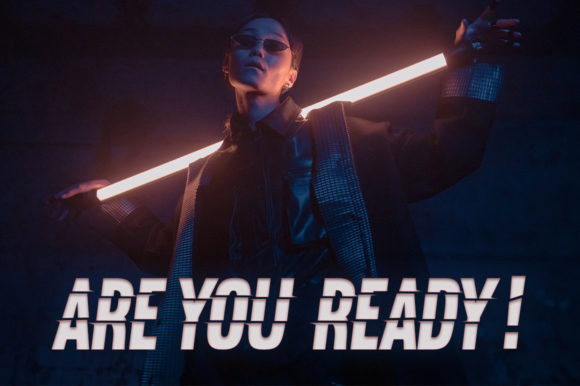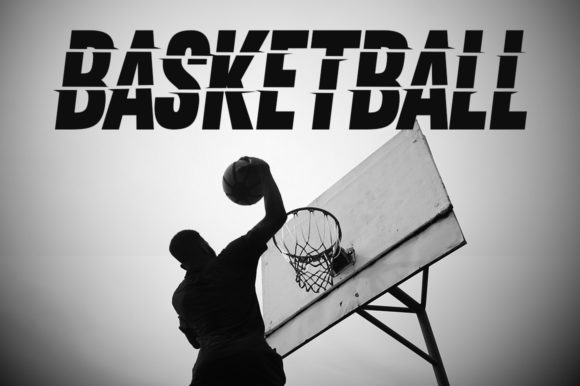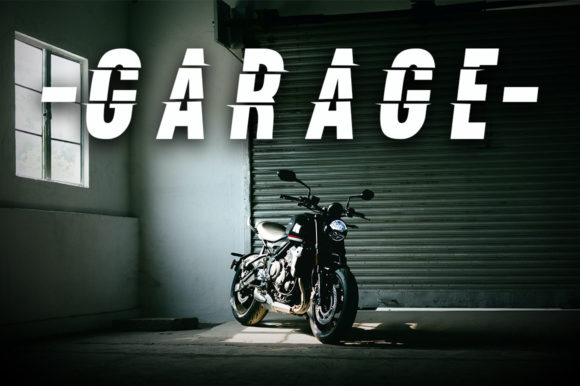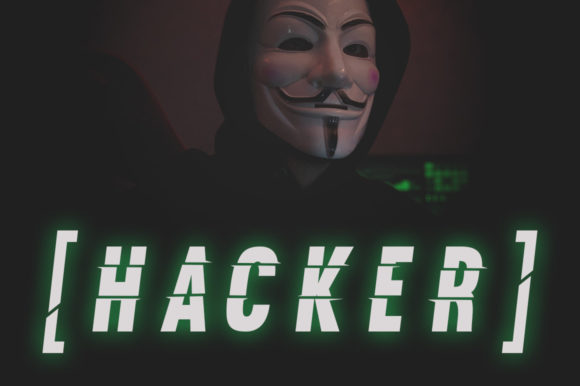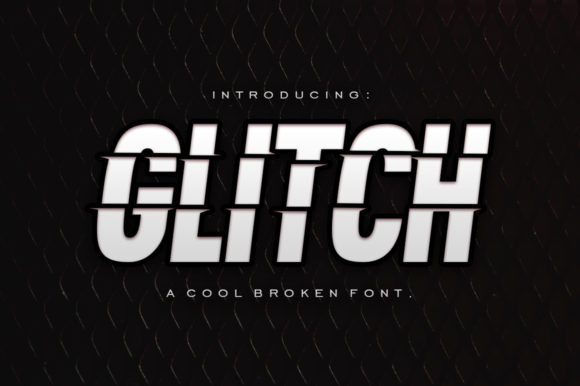
Introducing Glitch Font: The Perfect Crazy Display Font for Your Classy Projects
Are you tired of using the same old fonts for your creative projects? Do you want to add a touch of uniqueness and edginess to your designs? Look no further than Glitch Font, the perfect crazy display font for your classy projects. With its sharp strokes and bold appearance, Glitch Font is suitable for a wide range of creative projects, from company names and movie titles to vehicle repair shops, squad names, t-shirts, and product names.
What is Glitch Font?
Glitch Font is a display font that is designed to make a statement. Its sharp strokes and bold appearance give it a unique and edgy look that is sure to grab attention. The font is perfect for designers and crafters who want to add a touch of personality to their projects. Whether you’re working on a logo, a poster, or a t-shirt design, Glitch Font is the perfect choice.
Key Features of Glitch Font
- Sharp Strokes: Glitch Font features sharp strokes that give it a bold and edgy appearance.
- Crazy Display Font: Glitch Font is a display font that is designed to make a statement. It’s perfect for headlines, titles, and other attention-grabbing elements.
- Classy Projects: Despite its bold appearance, Glitch Font is suitable for classy projects such as company names, movie titles, and product names.
- Versatile: Glitch Font is versatile and can be used for a wide range of creative projects, from vehicle repair shops to squad names and t-shirts.
Why Choose Glitch Font?
There are many reasons why you should choose Glitch Font for your next project. Here are a few:
- Unique Appearance: Glitch Font has a unique appearance that is sure to grab attention. Its sharp strokes and bold appearance make it stand out from other fonts.
- Easily Readable: Despite its bold appearance, Glitch Font is easily readable, making it perfect for headlines and titles.
- Customizable: Glitch Font is customizable, allowing you to adjust the font size, color, and style to fit your project’s needs.
Tips and Tricks for Using Glitch Font
Here are a few tips and tricks for using Glitch Font:
- Use it for Headlines: Glitch Font is perfect for headlines and titles. Use it to grab attention and add a touch of personality to your designs.
- Experiment with Colors: Experiment with different colors to find the perfect combination for your project.
- Pair it with Other Fonts: Pair Glitch Font with other fonts to create a unique and interesting design.
- Use it for Logos: Glitch Font is perfect for logos and branding. Use it to create a unique and memorable logo for your business or project.